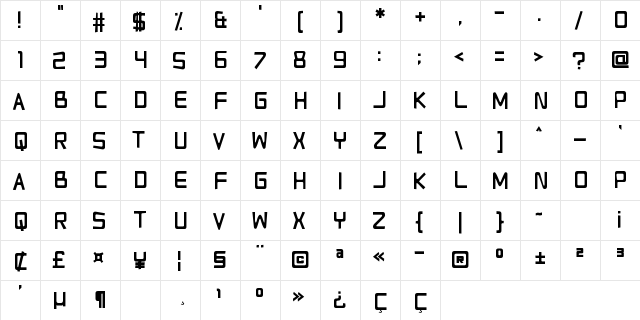
Relapse Into Madness Regular Font Preview
Relapse Into Madness Regular
Relapse Into Madness Regular Font Details
Design Context for Relapse Into Madness Typeface
Relapse Into Madness takes a measured approach to typography — its balanced proportions and neutral character make it a reliable workhorse for both digital and print work.